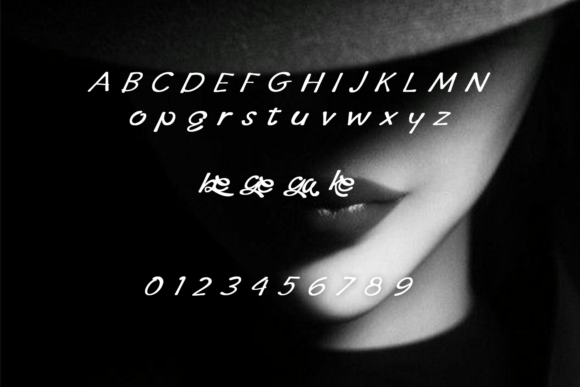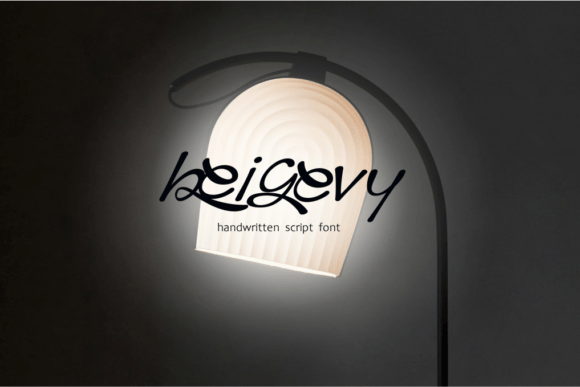
Introducing Beigevy Font: The Elegant and Charming Choice for Designers and Crafters
Are you looking for a font that exudes elegance and charm? Look no further than Beigevy Font. This beautiful handwritten font is perfect for adding a touch of sophistication to any design project. In this article, we’ll explore the features and benefits of Beigevy Font, and why it’s a must-have for designers and crafters.
A Font that Feels Equally Charming and Elegant
Beigevy Font is a unique and stylish font that feels equally charming and elegant. Its handwritten touch makes it perfect for designs that require a personal and sophisticated feel. Whether you’re working on a wedding invitation, a thank you card, or a quote, Beigevy Font is sure to make your design stand out.
Perfect for Wedding Invitations and Stationery
Beigevy Font is particularly well-suited for wedding invitations, thank you cards, and other stationery designs. Its elegant and charming feel makes it perfect for formal events and special occasions. With Beigevy Font, you can create beautiful and memorable wedding invitations that will set the tone for your special day.
More than Just Wedding Invitations
While Beigevy Font is perfect for wedding invitations, its uses don’t stop there. You can also use it for a variety of other design projects, such as:
- Quotes: Add a touch of elegance to your inspirational quotes with Beigevy Font.
- Greeting cards: Create beautiful and heartfelt greeting cards for any occasion.
- Logos: Use Beigevy Font to create a unique and memorable logo for your business.
- Business cards: Add a touch of sophistication to your business cards with Beigevy Font.
Why Designers and Crafters Love Beigevy Font
So why do designers and crafters love Beigevy Font? Here are just a few reasons:
- Elegant and charming feel: Beigevy Font has a unique and stylish feel that’s perfect for designs that require a personal touch.
- Versatile: Beigevy Font can be used for a wide range of design projects, from wedding invitations to logos.
- Easy to read: Despite its elegant feel, Beigevy Font is easy to read and understand.
- Unique: Beigevy Font is a one-of-a-kind font that’s sure to make your designs stand out.
Tips for Using Beigevy Font
Here are a few tips for getting the most out of Beigevy Font:
- Use it sparingly: Beigevy Font is perfect for adding a touch of elegance to your designs, but use it sparingly to avoid overwhelming your design.
- Pair it with other fonts: Beigevy Font pairs well with other fonts, so don’t be afraid to experiment with different combinations.
- Experiment with colors: Beigevy Font looks great in a variety of colors, so experiment with different colors to find the one that works best for your design.
In conclusion, Beigevy Font is a beautiful and elegant font that’s perfect for designers and crafters. Its unique and stylish feel makes it perfect for a wide range of design projects, from wedding invitations to logos. With its versatility, ease of use, and unique feel, Beigevy Font is a must-have for anyone looking to add a touch of sophistication to their designs.